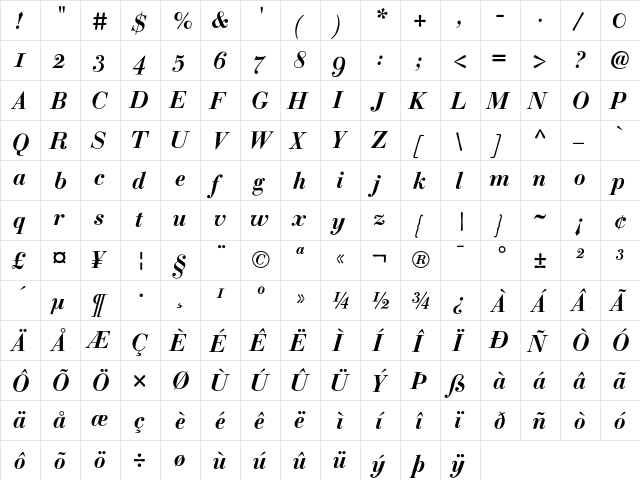
BodoniClassic AdBoldItalic Font Preview
BodoniClassic AdBoldItalic
BodoniClassic AdBoldItalic Font Details
Design Context for BodoniClassic Typeface
BodoniClassic has the warm character of retro typography — evoking diners, record sleeves, and the golden age of print advertising. The slanted form adds forward momentum and visual energy. The heavy weight commands attention and anchors typographic hierarchies.
Ideal for diner signage, record shop branding, 70s/80s-themed projects, and heritage product labels.
Font Pairing: Combine BodoniClassic with a simple slab or neutral sans — period-accurate companions reinforce the vintage feel without competing for attention.
Pro Tip: Lean into BodoniClassic's period character by pairing it with aged paper textures, muted colour palettes, and vintage illustration styles.